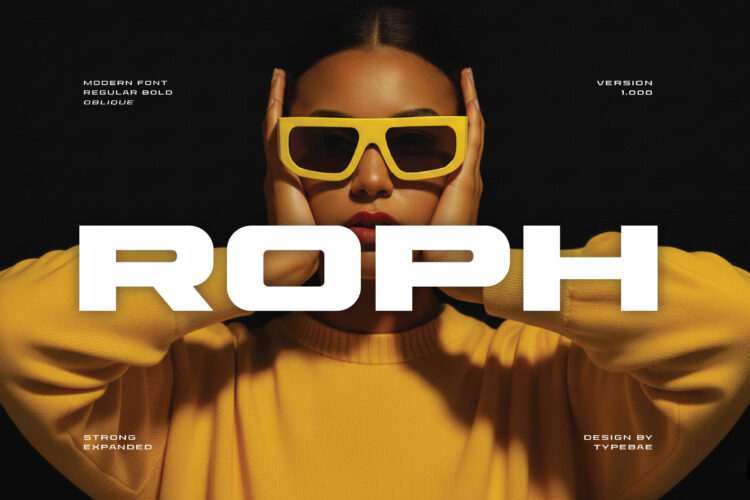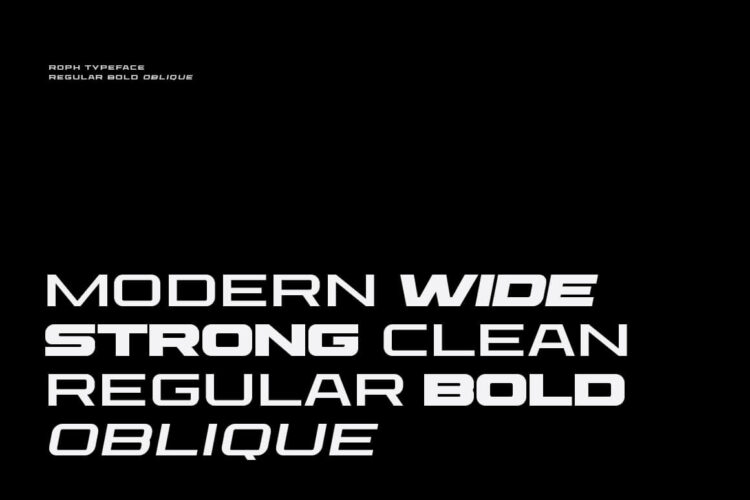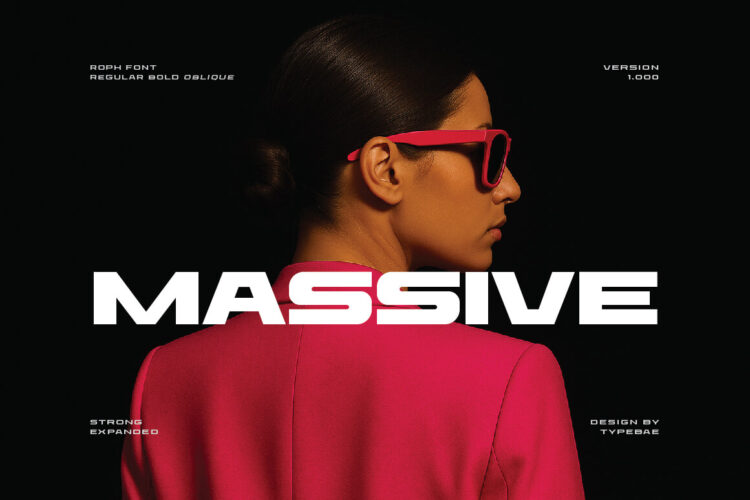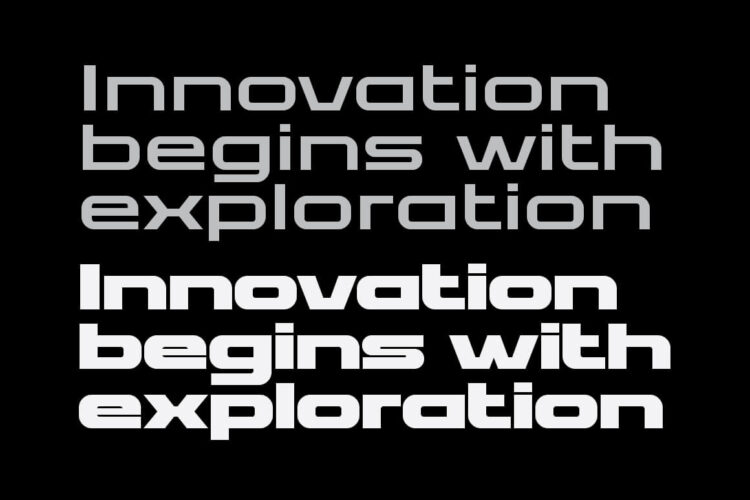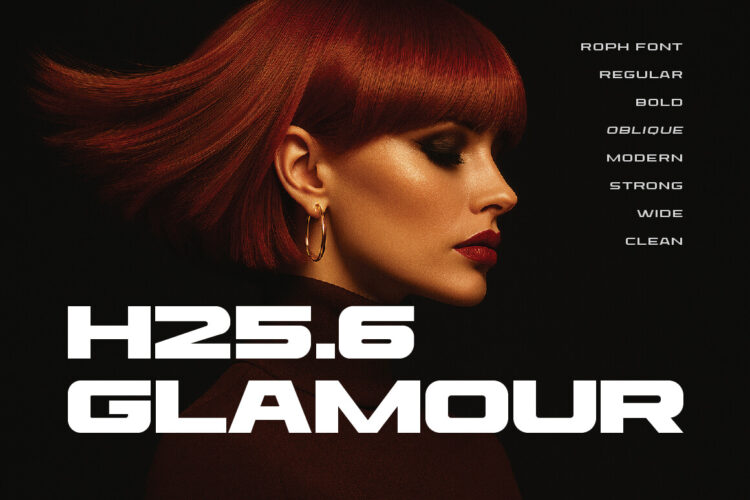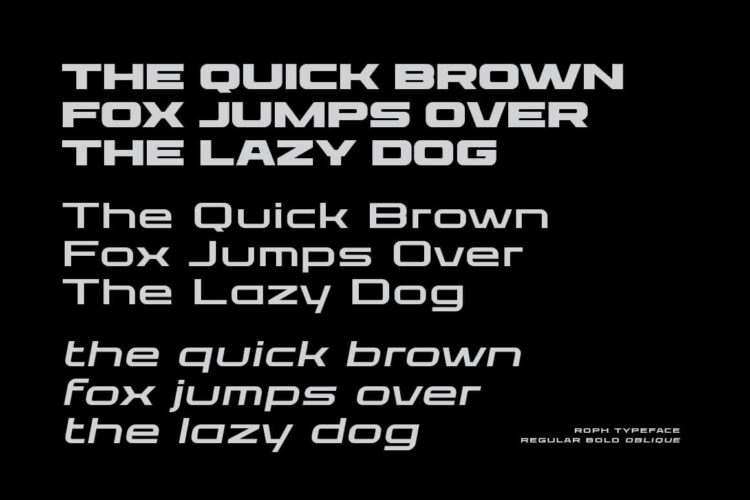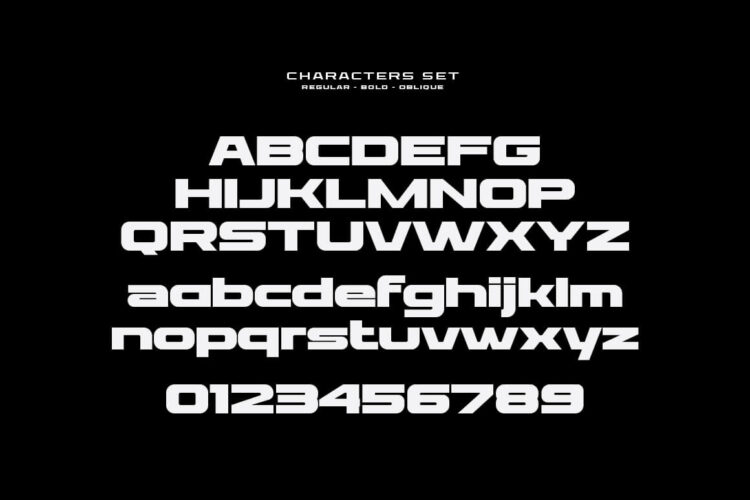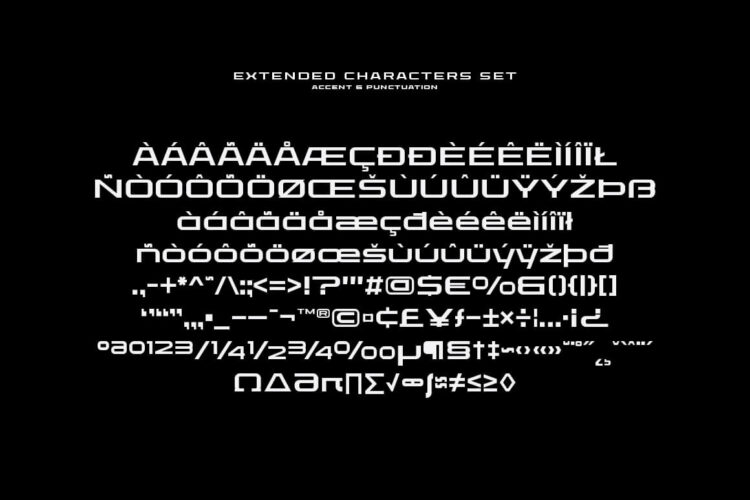
Roph - Modern Brand Identity Bold Font
Roph is a bold geometric sans-serif font crafted for brand identity and designs that demand attention. Its strong, squared structure with smooth optical balance gives it a futuristic, mechanical feel—perfect for sports, tech, and bold branding projects. Available in Regular, Bold, and Oblique styles, Roph combines precision engineering with modern typographic aesthetics.